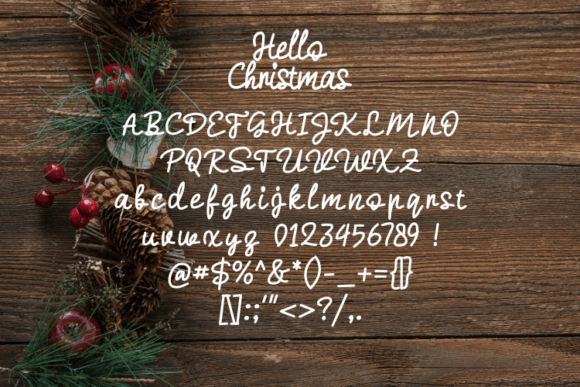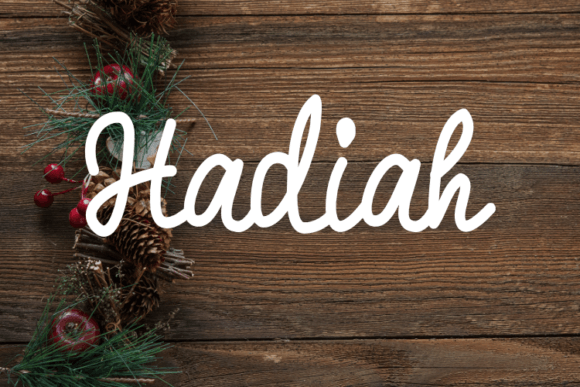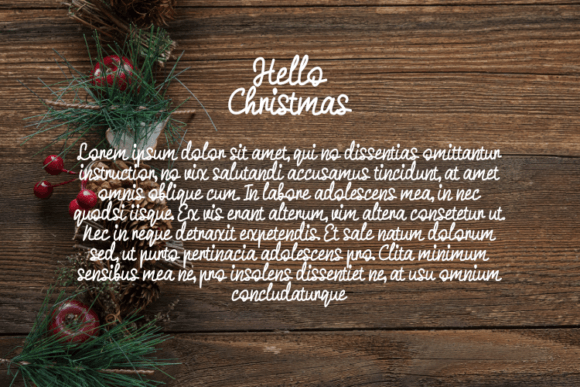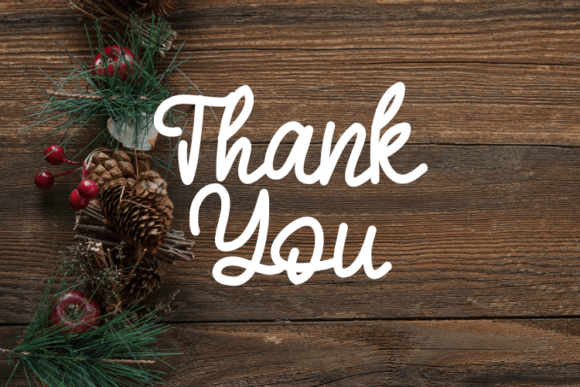
Deck the Halls with Style: Unveiling the ‘Hello Christmas Font’
As you sit in your cozy studio, surrounded by twinkling lights and the faint scent of hot cocoa, inspiration strikes. You envision a festive design that radiates joy and warmth – a perfect blend of creativity and cheer. And that’s where the ‘Hello Christmas Font’ comes in, meticulously crafted to bring your holiday design ideas to life.
This striking font is designed specifically for apparel and product design, effortlessly infusing a dash of festivity into t-shirts, mugs, and other holiday-themed products. With its universal compatibility and smooth operation across all design software, the ‘Hello Christmas Font’ is an ideal choice for designers looking to elevate their creations.
Hello Christmas Font Key Features
- Unique Characteristics: The Hello Christmas Font features a festive and playful design, with bold and colorful letters that evoke a sense of holiday cheer. The font is perfect for creating eye-catching headings and titles for Christmas-themed projects.
Hello Christmas Font Review
First off, let’s talk about what I love about the Hello Christmas Font. ✨ The font is incredibly festive and perfect for holiday projects. It’s a great choice if you want to add some extra cheer to your designs. The font also has a fun, playful feel to it, which makes it perfect for kid-friendly projects or advertisements.
Another great aspect of the font is its versatility. ✨ It can be used in a variety of contexts, from holiday cards to social media posts. The font also comes in a range of sizes, so you can use it for both small and large-scale projects.
Now, let’s talk about some of the limitations of the font. ⚠️ One of the main issues is that it’s not very versatile in terms of style. The font is very much a holiday font, and it may not be suitable for projects outside of the holiday season. Additionally, the font may not be the best choice if you’re looking for a font with a lot of depth or complexity.
- ✨ Perfect for holiday projects
- ✨ Fun and playful feel
- ✨ Versatile in terms of size
- ⚠️ Limited in terms of style
- ⚠️ May not be suitable for projects outside of the holiday season
Overall, I would say that the Hello Christmas Font is a great choice for holiday projects, but it may not be the best choice for projects outside of the holiday season. With that in mind, I would give the font 4 out of 5 stars.
Tips for Getting the Most Out of the Hello Christmas Font
Use the Hello Christmas Font in conjunction with festive colors and graphics to create a cohesive holiday design.
Experiment with different font sizes and styles to add visual interest to your design.
Combine the Hello Christmas Font with other holiday fonts to create a unique and eye-catching design.
The Hello Christmas Font is perfect for:
Holiday greeting cards and invitations
Christmas party decorations and signage
Holiday marketing materials and advertising